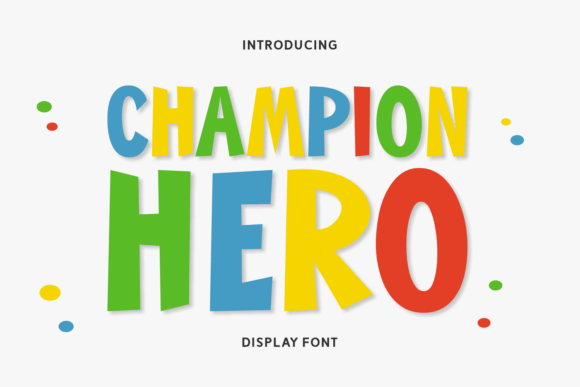
Champion Hero Font: The Ultimate Multifaceted Font Style for Creative Expression
Embark on a delightful creative journey with the Champion Hero font, a versatile and dynamic typeface that can adapt to any design need. This font style is aptly named, as it’s truly a chameleon in the world of typography, capable of evoking a range of emotions and styles.
The Playful and Cartoonish Characteristics of Champion Hero
The Champion Hero font boasts a cartoonish and playful personality, making it an excellent choice for comic strips, children’s books, and other materials aimed at a young audience. Its light-hearted and cheerful appeal can instantly bring a sense of joy and fun to any design project. Whether you’re a parent, educator, or designer looking to create engaging content for kids, this font is sure to delight.
Champion Hero in Branding and Merchandise
But Champion Hero’s versatility doesn’t stop at playful designs. This font style also lends an air of chic sophistication when used in branding or emblazoned on t-shirts, making it an attractive pick for companies wanting to stand out in a crowded market. Its unique blend of playfulness and elegance can help businesses establish a distinctive brand voice and visual identity.
Why Champion Hero is Perfect for Marketing and Advertising
In today’s competitive marketing landscape, brands need to find innovative ways to connect with their target audience. Champion Hero font can help businesses achieve this goal by:
- Conveying a sense of fun and approachability
- Adding a touch of whimsy and creativity to brand designs
- Establishing a youthful and energetic brand personality
Crafting Unique and Engaging Content with Champion Hero
Champion Hero font is not just limited to branding and marketing; it’s also perfect for creating engaging content for special occasions. Parents and educators can use this font to design:
- Unique birthday invitations that set the tone for a fun celebration
- Amusing Father’s Day cards that showcase a playful personality
- Interactive educational materials that make learning fun
- Font style: Sans-serif
In conclusion, the Champion Hero font is an exceptional multifaceted font style that can elevate any design project. Its unique blend of playfulness, elegance, and versatility makes it an excellent choice for a wide range of applications, from comic strips and children’s books to branding and marketing materials. Whether you’re a designer, parent, or educator, Champion Hero font is sure to inspire creativity and bring joy to your audience.